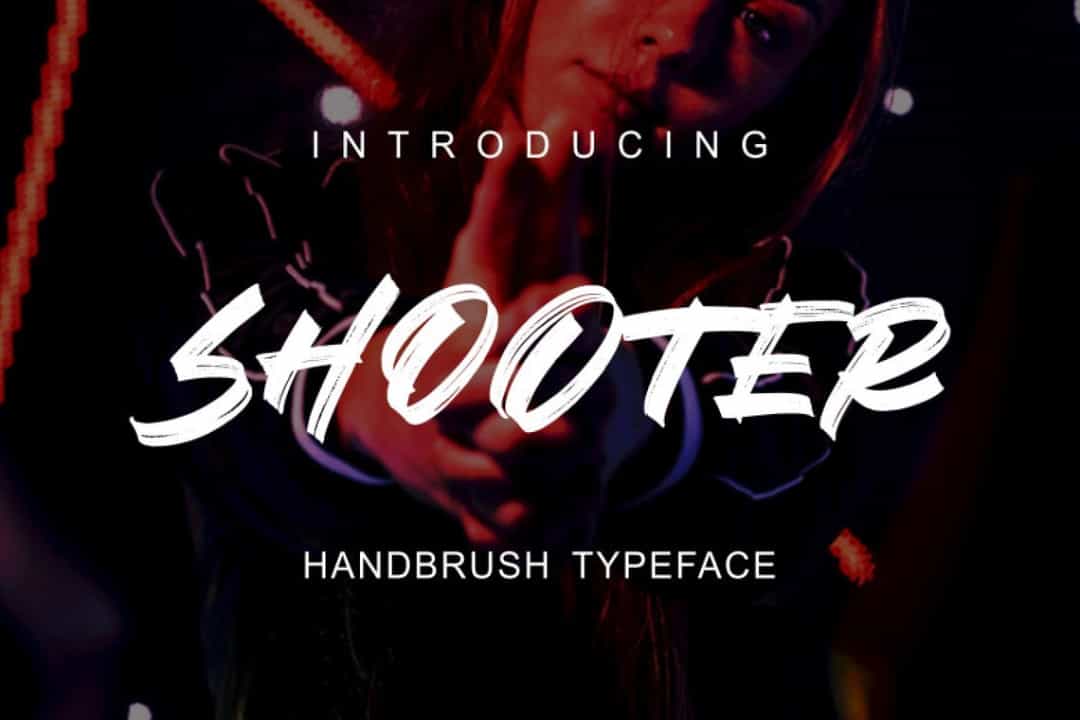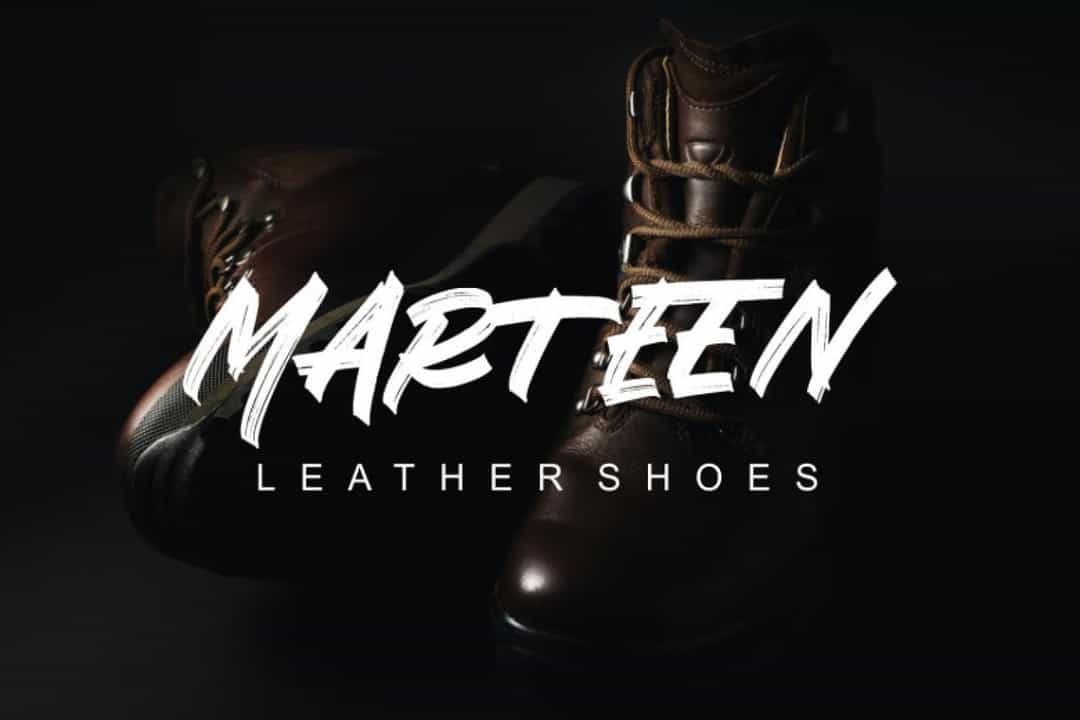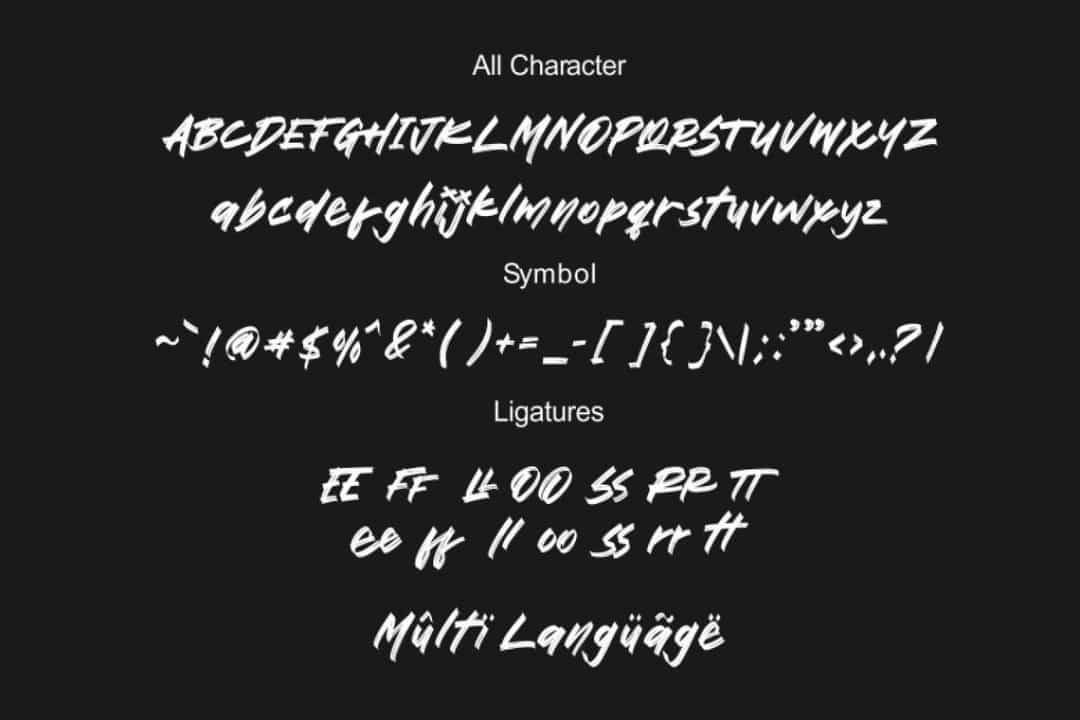
SHOOTER is an elegant handwritten font. Let its clean, natural style be your source of design inspiration when applying it to any of your creations! Ideal for logos, handwritten quotes, product packaging headers posters apparel merchandise social media greeting cards & greeting card applications.